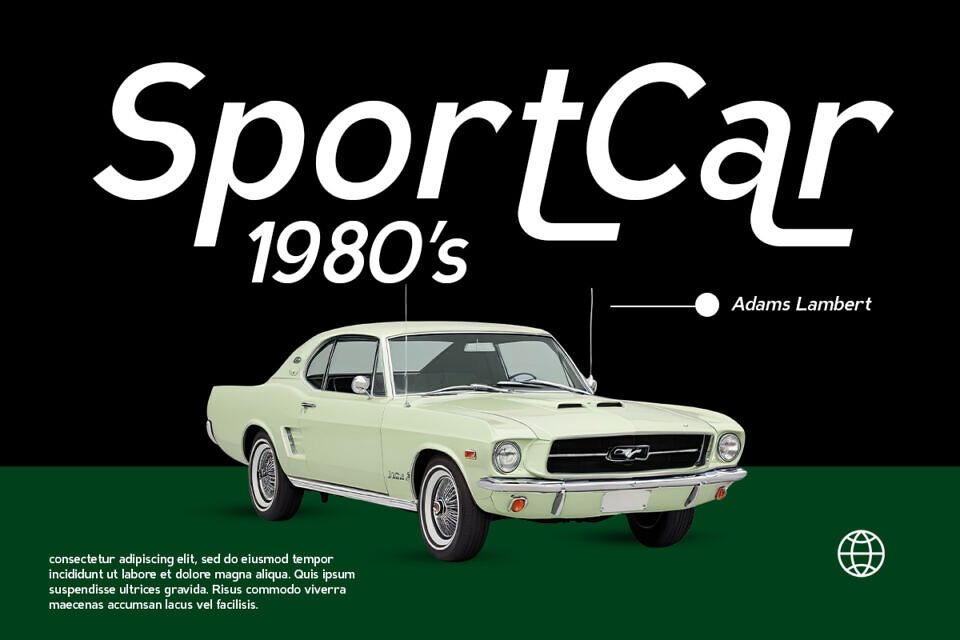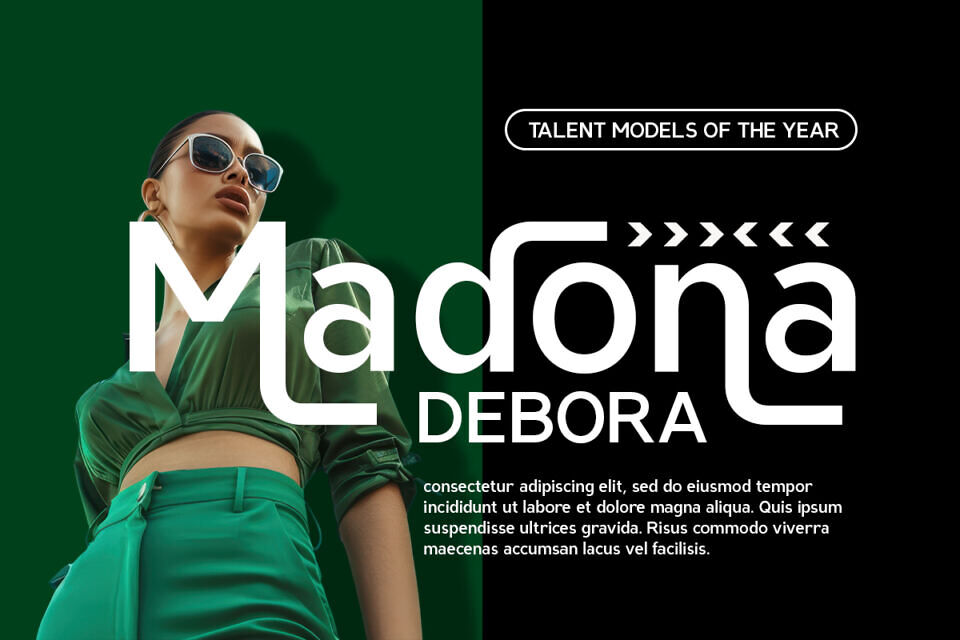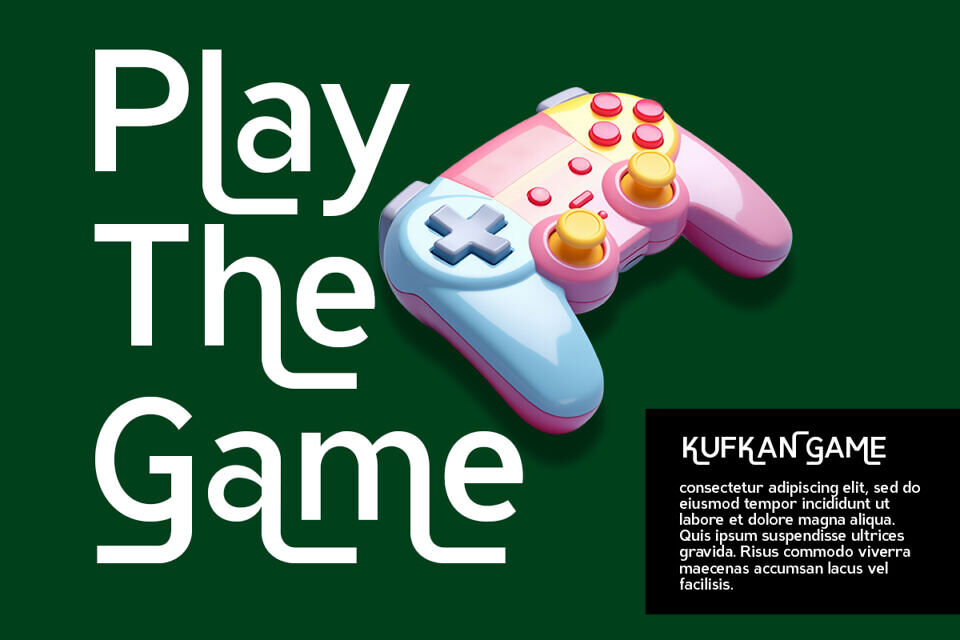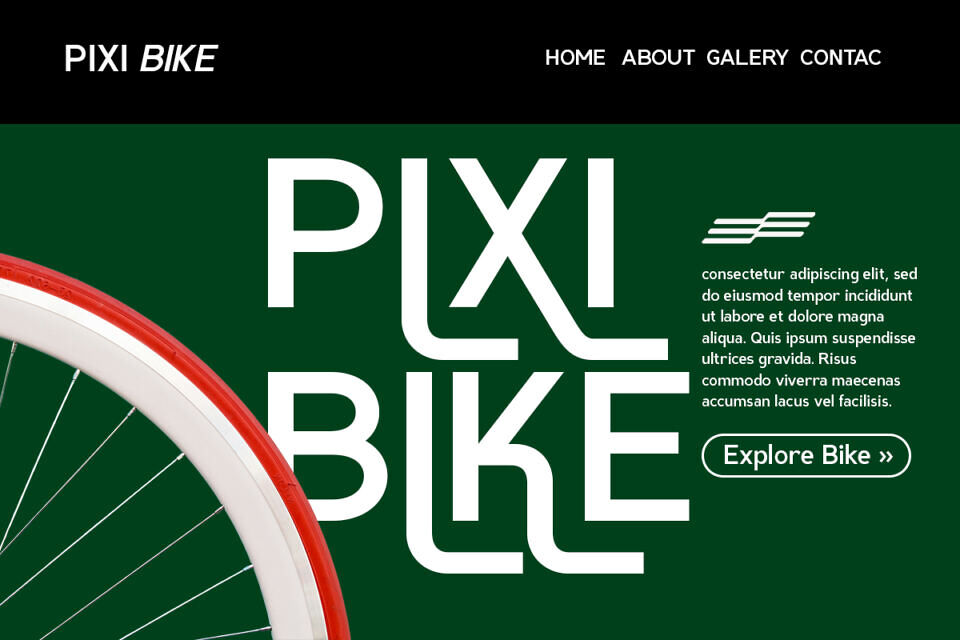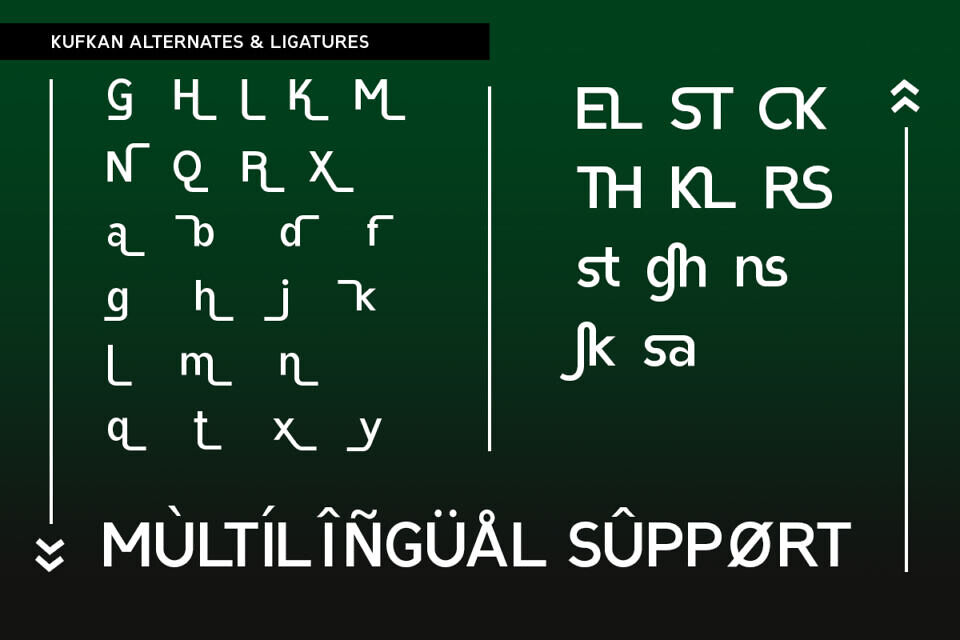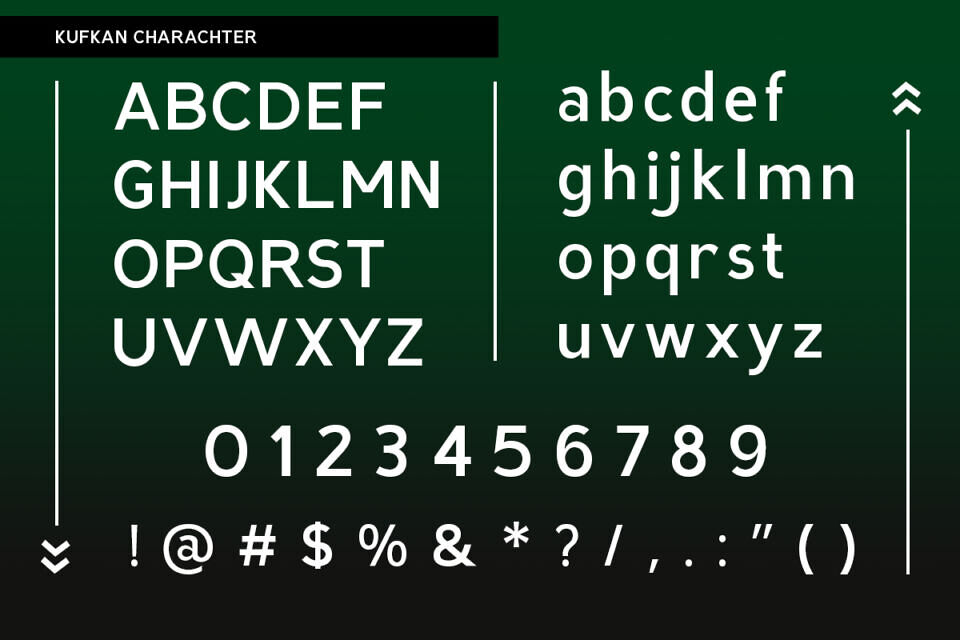
Kufkan Font
Kufkan is a modern geometric sans serif typeface crafted to enhance branding and visual storytelling. With clean lines and balanced proportions, it offers timeless minimalism and professional clarity. Ideal for packaging, editorial layouts, digital interfaces, and distinctive logo design, Kufkan adapts seamlessly across industries.
From eco-conscious brands and fashion-forward products to tech companies and creative agencies, it delivers sophistication with confidence. Kufkan provides designers with a versatile, elegant font solution that elevates brand presence and strengthens visual identity.